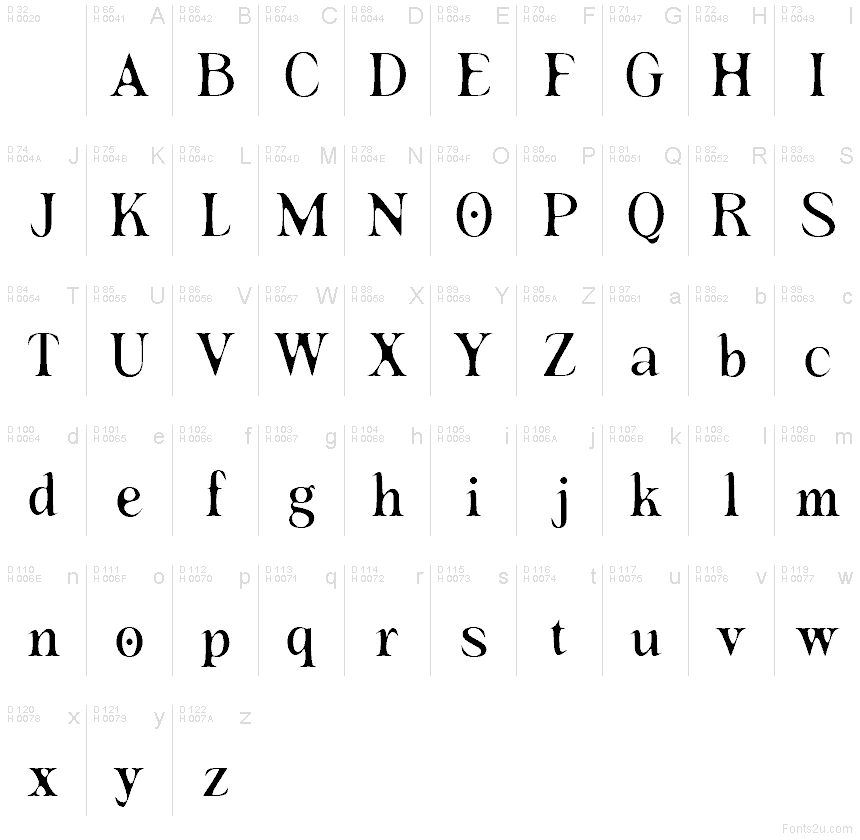
CSRominaDrawn-Regular Demo
CS Romina Drawn font by Craft Supply Co. is a free old style serif font. Built within the CS Romina family, it stands out with sculpted teardrop counters, velvety ink traps, and flared serifs that feel brush-cut rather than machined. The strokes swell and taper with a tactile, inky rhythm, giving headlines a luxe, crafted presence without losing clarity.
Using CS Romina Drawn, you get dramatic, boutique energy that shines on packaging, beauty branding, wine labels, editorial covers, posters, and invitations. The generous contrast and smooth curves create a confident pace at large sizes, while the subtly rough edges add warmth. Pair this free font for headlines with other CS Romina family styles or a quiet sans for supporting copy.
CS Romina Drawn Demo